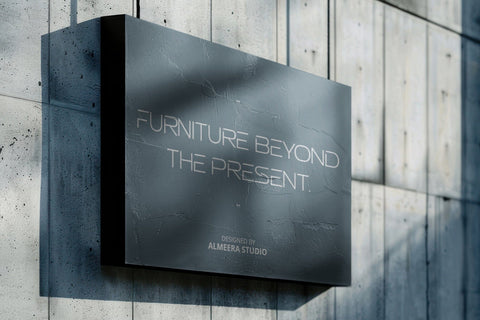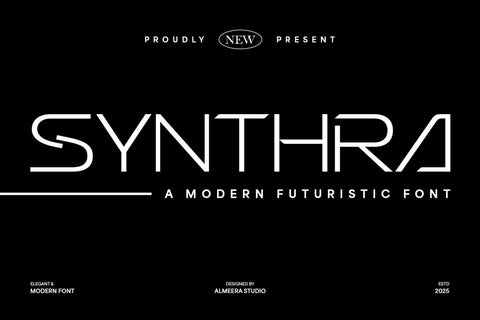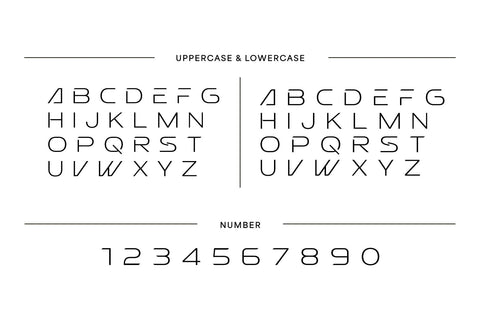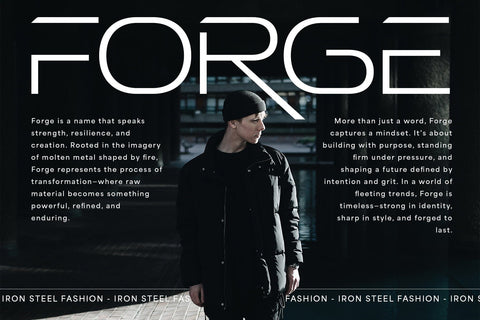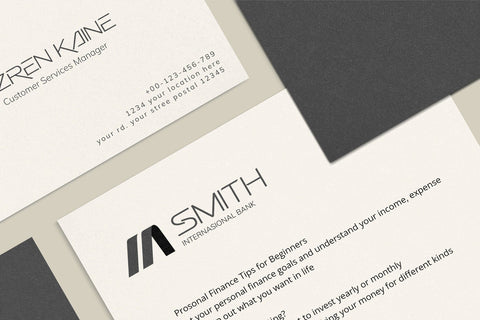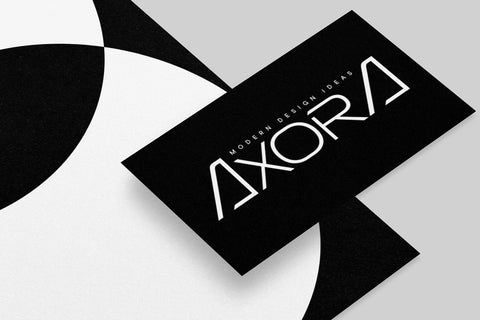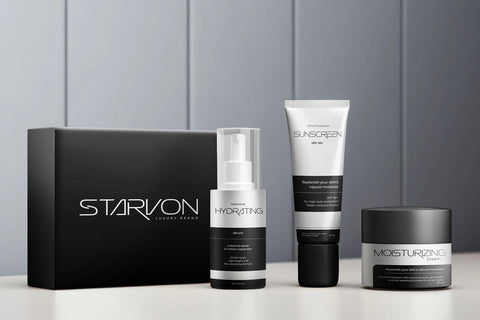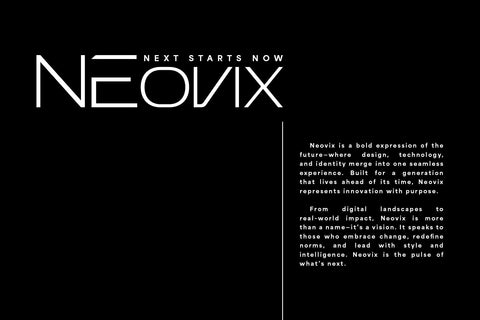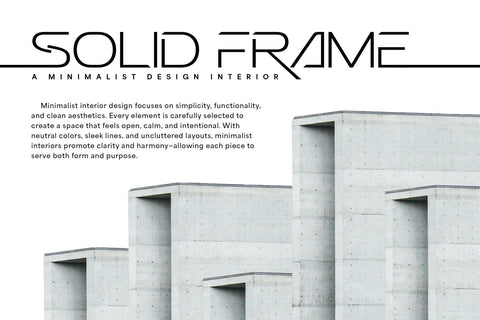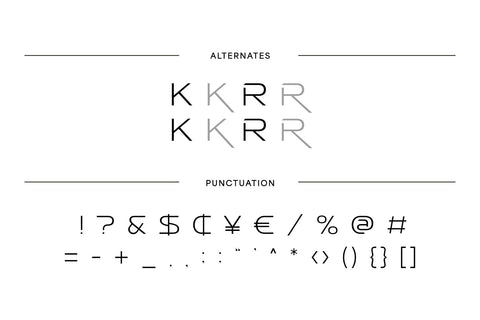
Synthra - A Modern Futuristic Font
Introducing Synthra, a stunning new modern futuristic font that embodies clean lines and a minimalist, high-tech aesthetic. This elegant and modern typeface is ideal for tech branding, digital interfaces, gaming titles, corporate innovation, and any design project seeking a sophisticated and forward-thinking look. Synthra features precise geometric shapes and distinctive cutouts that create a sharp, contemporary feel. Its minimalist design ensures exceptional readability and a clean, professional presence. Elevate your typography with Synthra, the go-to font for designers who want to convey precision, advancement, and a streamlined vision of the future with undeniable style and clarity.